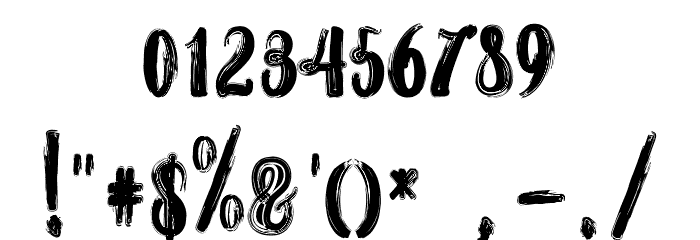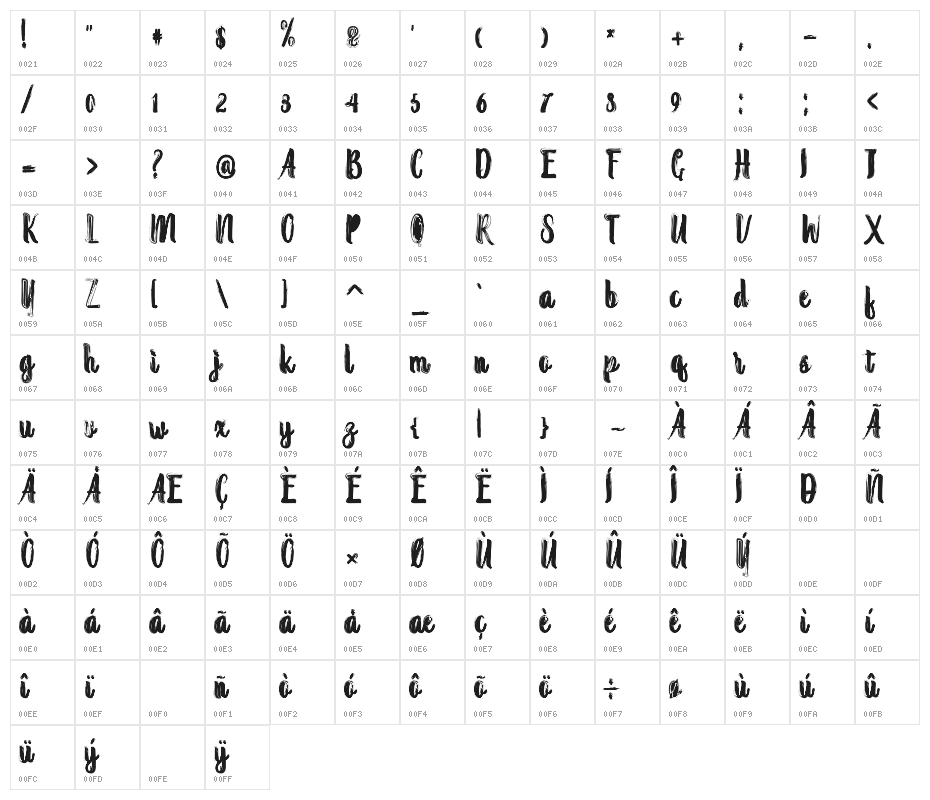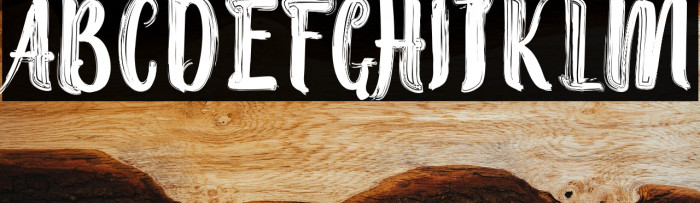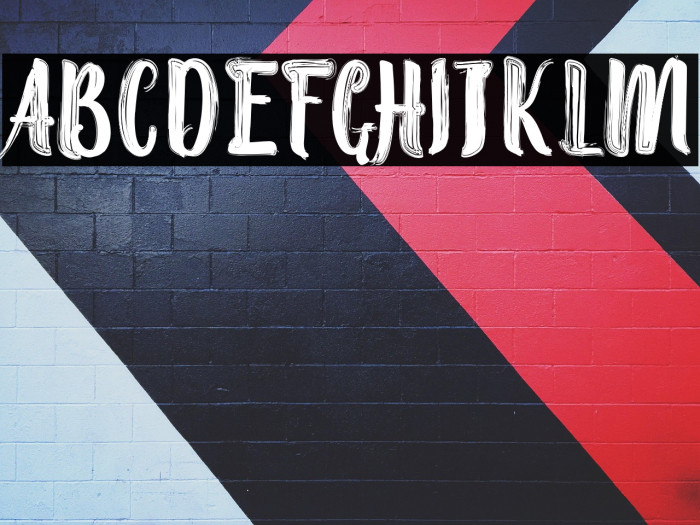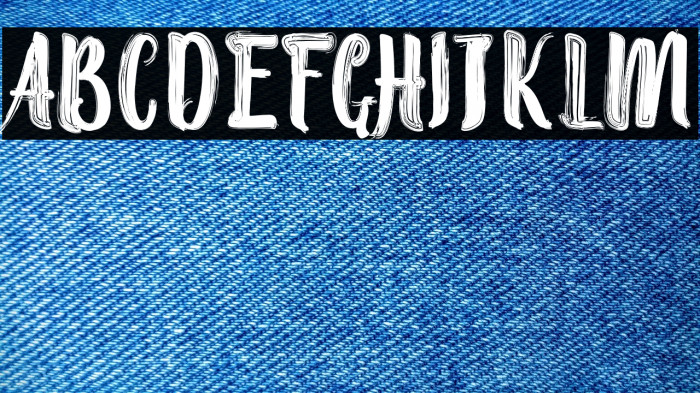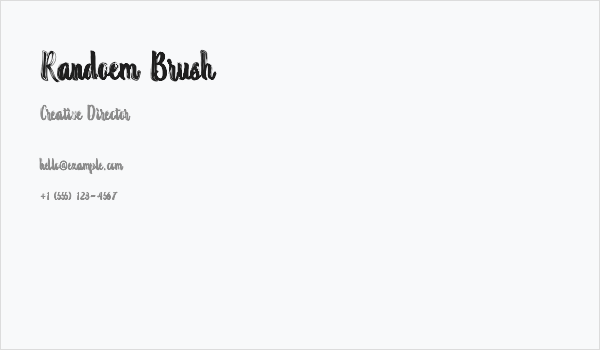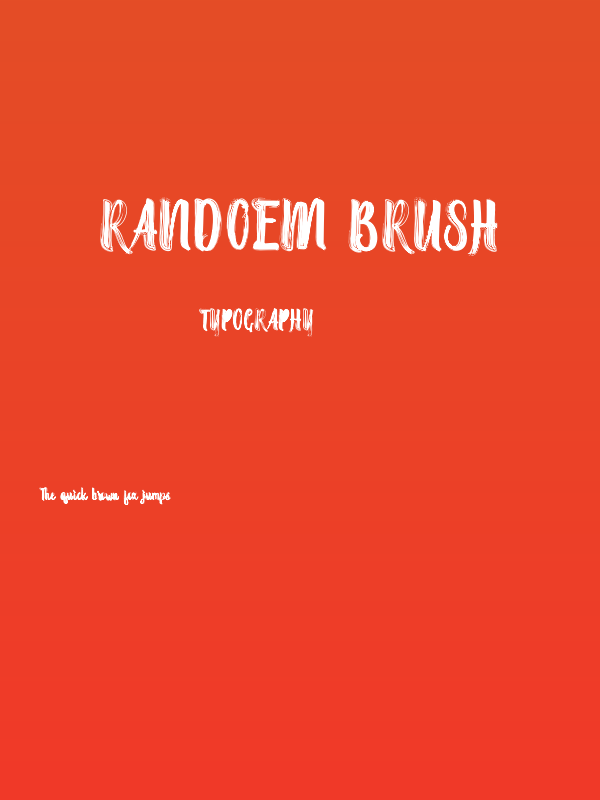
Randoem Brush Font
This font exudes a bold and expressive brush style, characterized by its dynamic and energetic strokes. The letters have a hand-painted appearance, with varying thickness that adds a sense of movement and fluidity. The uppercase and lowercase letters maintain a consistent style, with playful curves and a slightly irregular baseline that enhances its artistic flair. The numbers and special characters follow the same brush-like aesthetic, making them cohesive with the alphabet. This font is ideal for projects that require a personal and creative touch, such as artistic posters, branding for creative industries, or any design that seeks to capture attention with a bold statement.
A bold, expressive brush-style font with dynamic strokes and artistic flair.
- Font: Randoem Brush
- Proposed Projects: Artistic posters, creative branding, eye-catching headlines, and unique invitations.
- Category: Handwritten